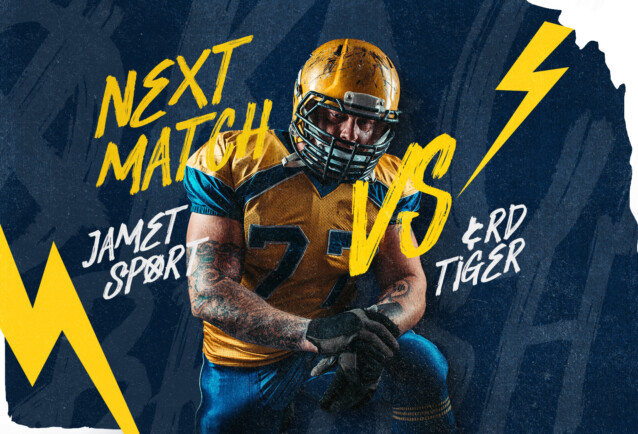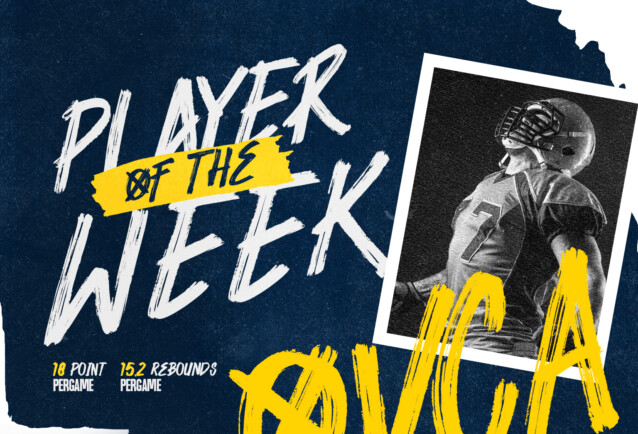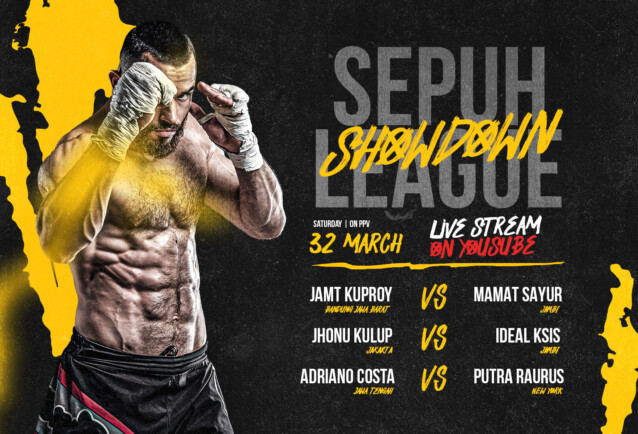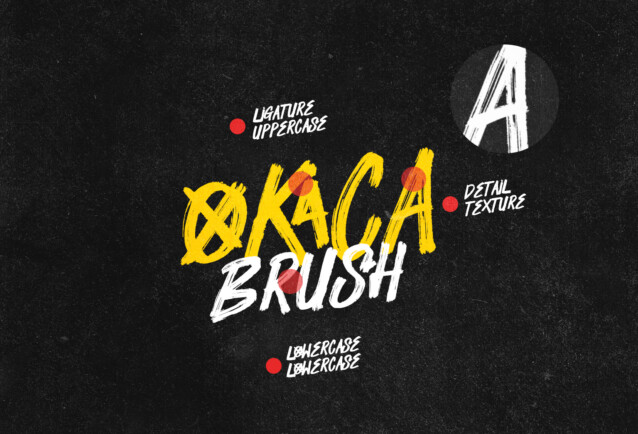
oKACA Font
oKACA Font is simple and clean brush font that will make your designs stand out. Use this font on posters, flyers, t-shirts and so much more.